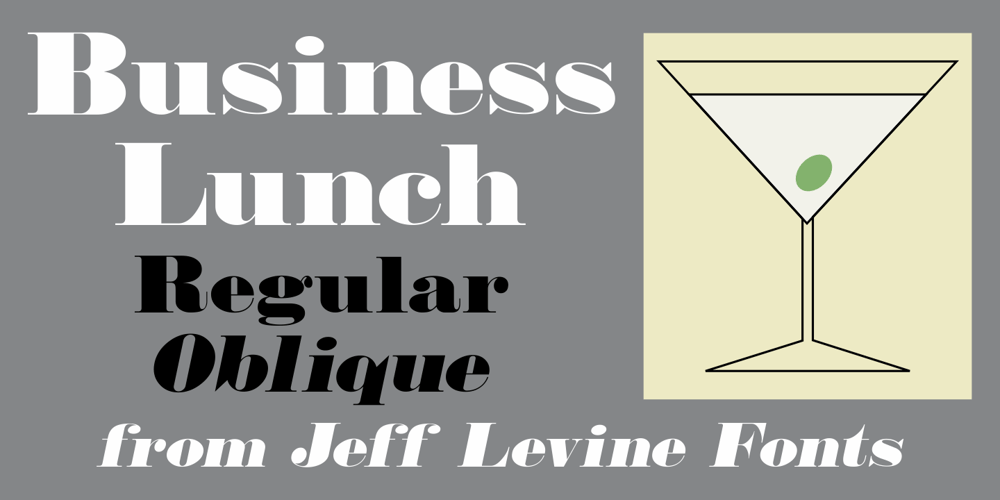
Business Lunch JNL
Business Lunch JNL font
Business Lunch JNL Font Family was designed by Jeff Levine and published by Jeff Levine. Business Lunch JNL contains 2 styles and family package options. Business Lunch JNL is an extra bold hairline serif font based on Monotype’s Falstaff, which in turn was greatly influenced by Bodoni Extra Bold.Great for posters, menu headers and other forms of headlining, Business Lunch JNL is available in both regular and oblique versions.